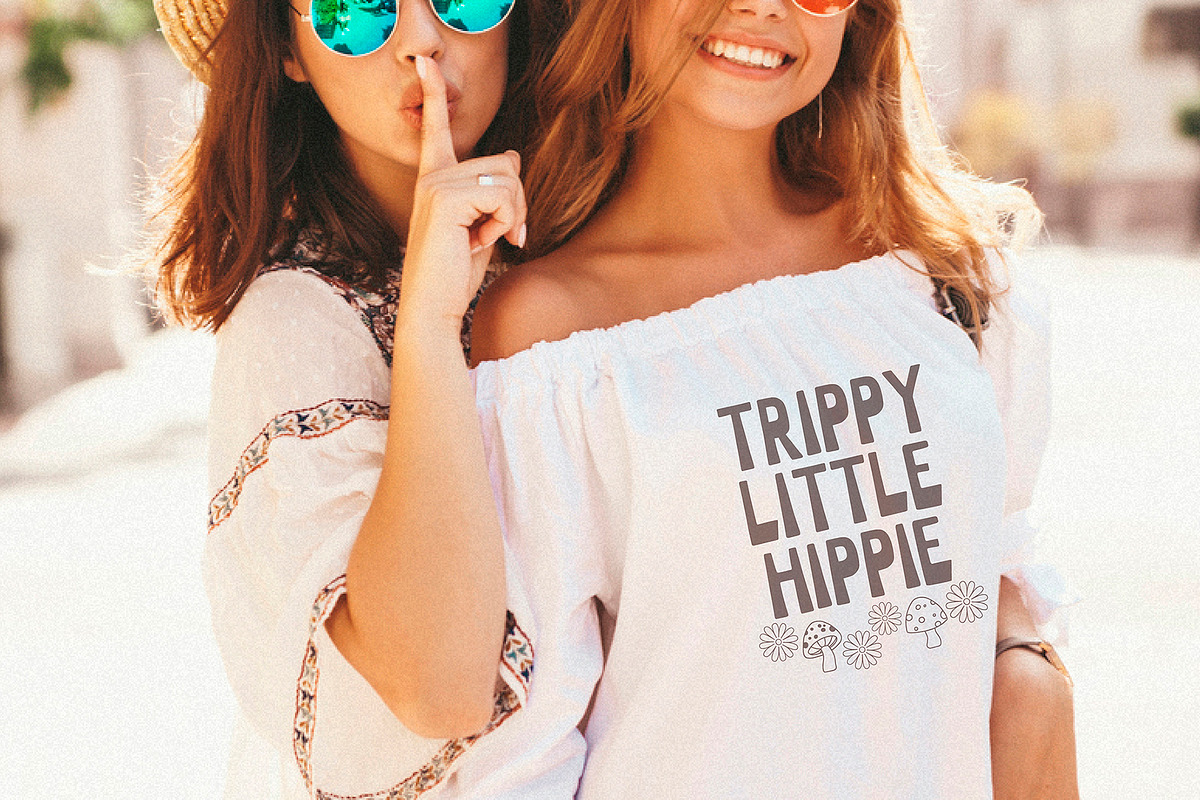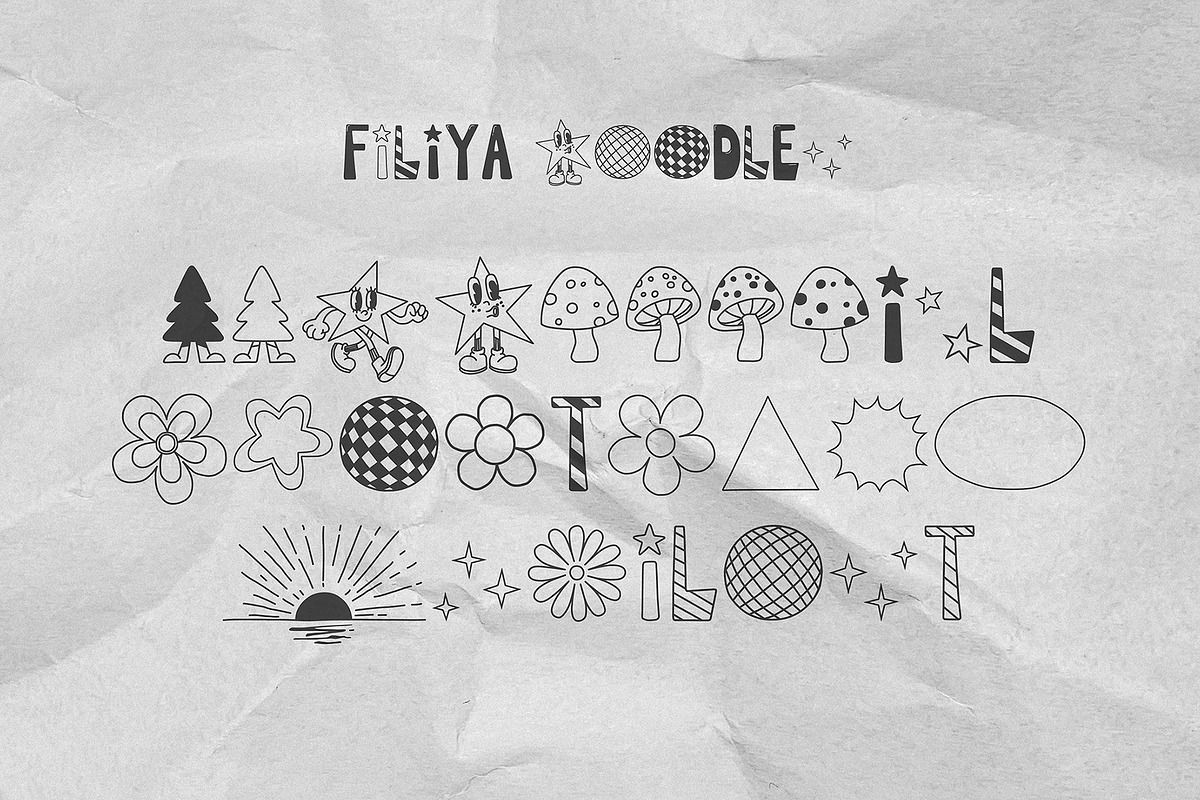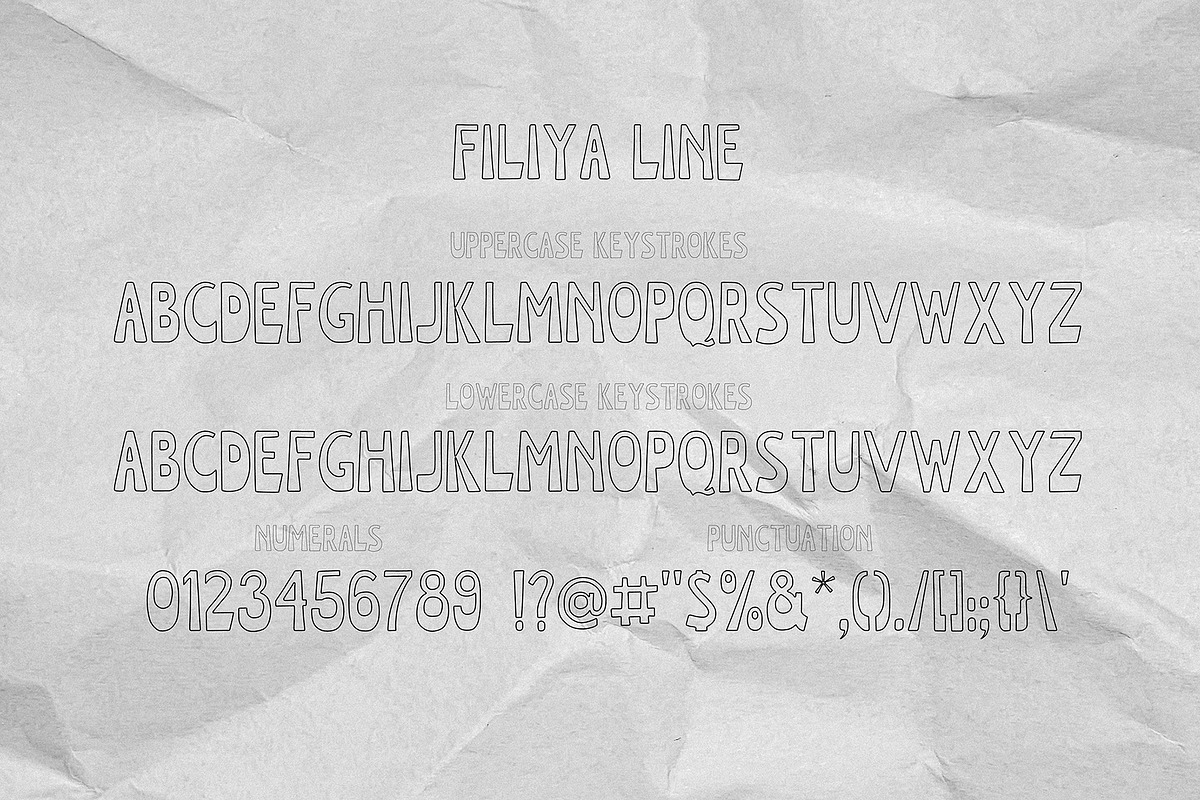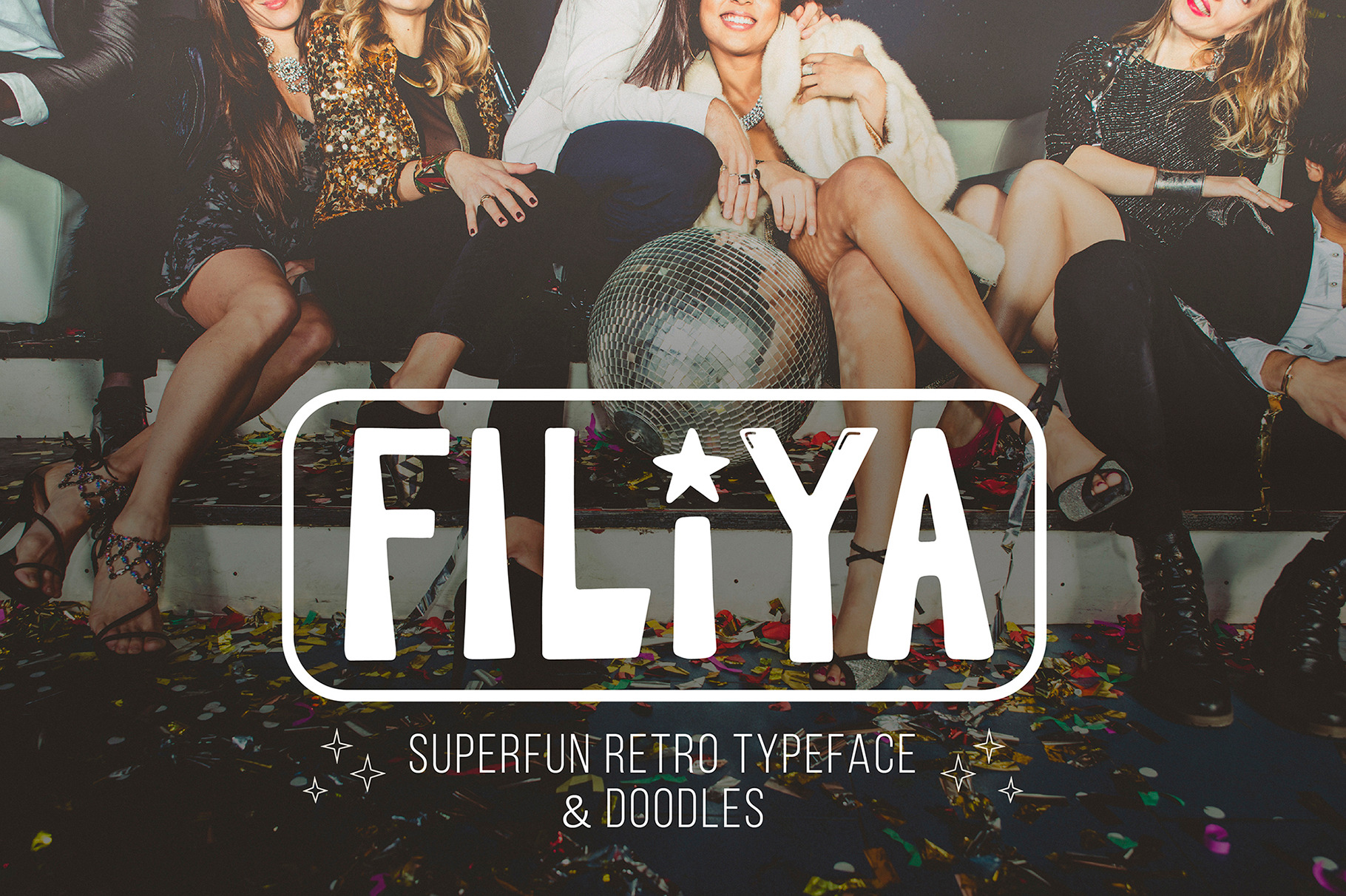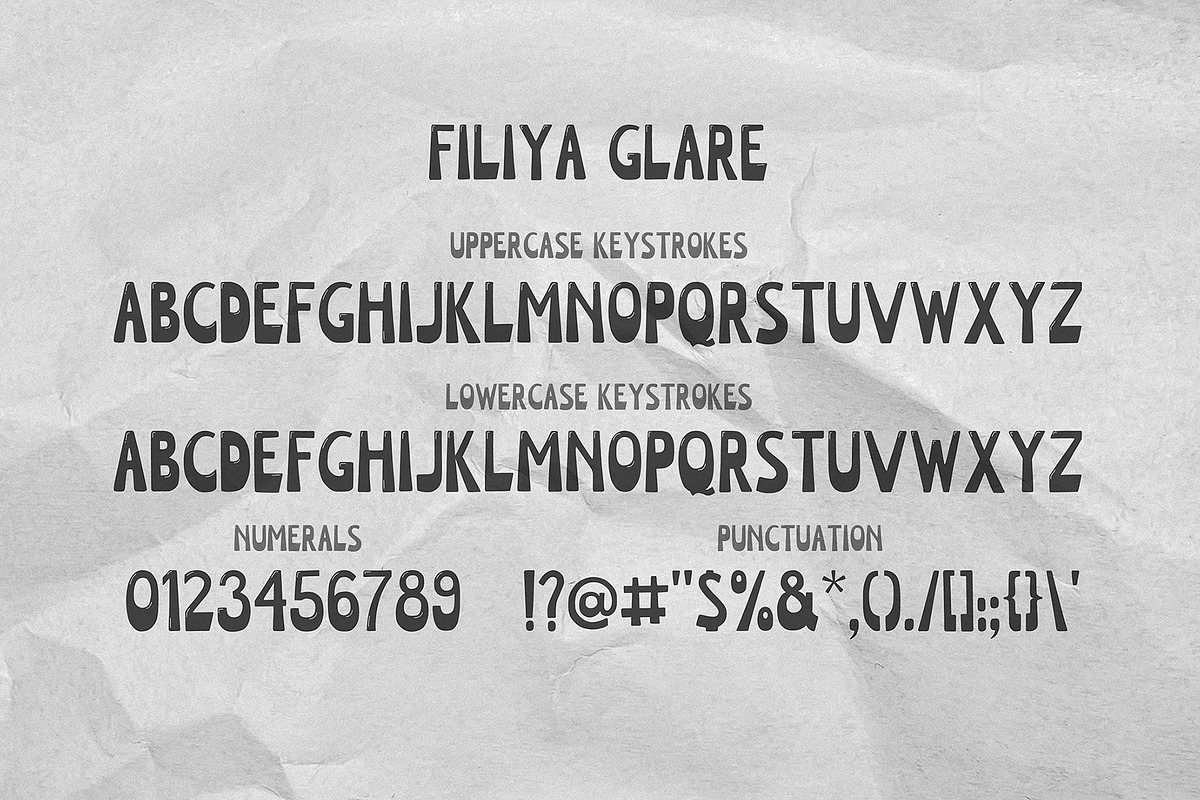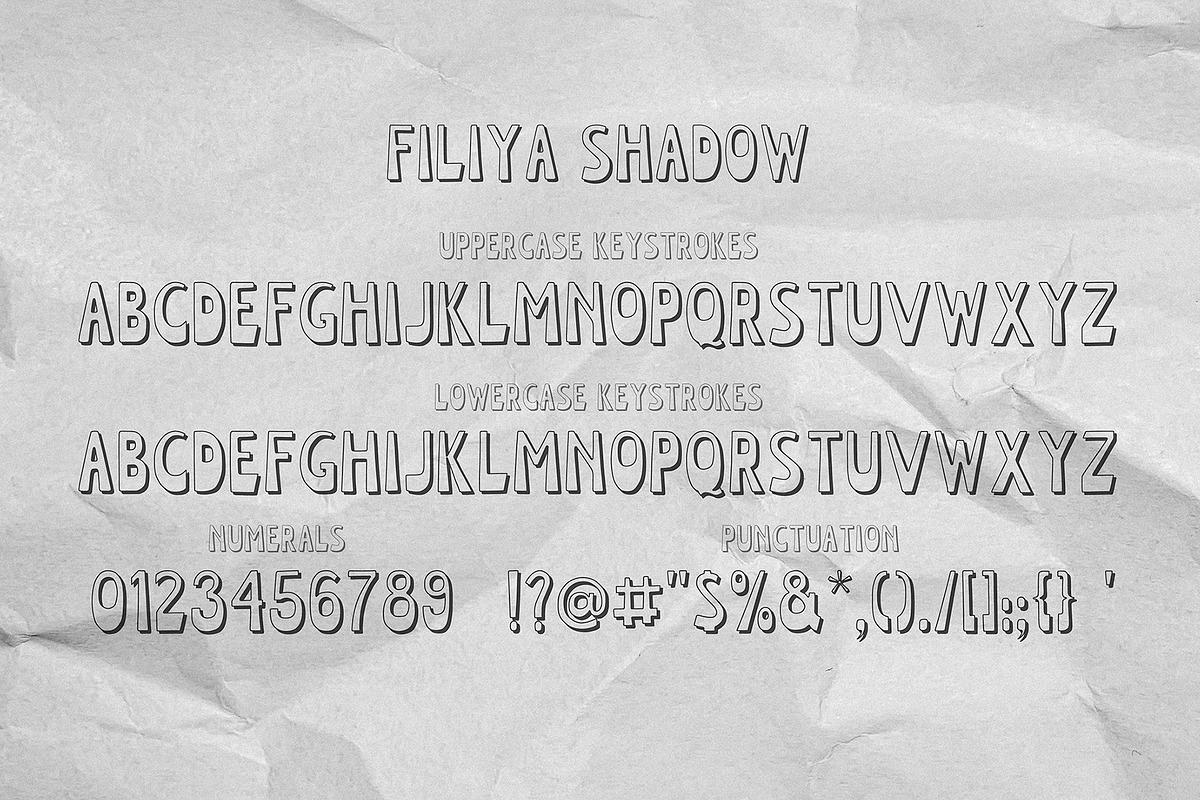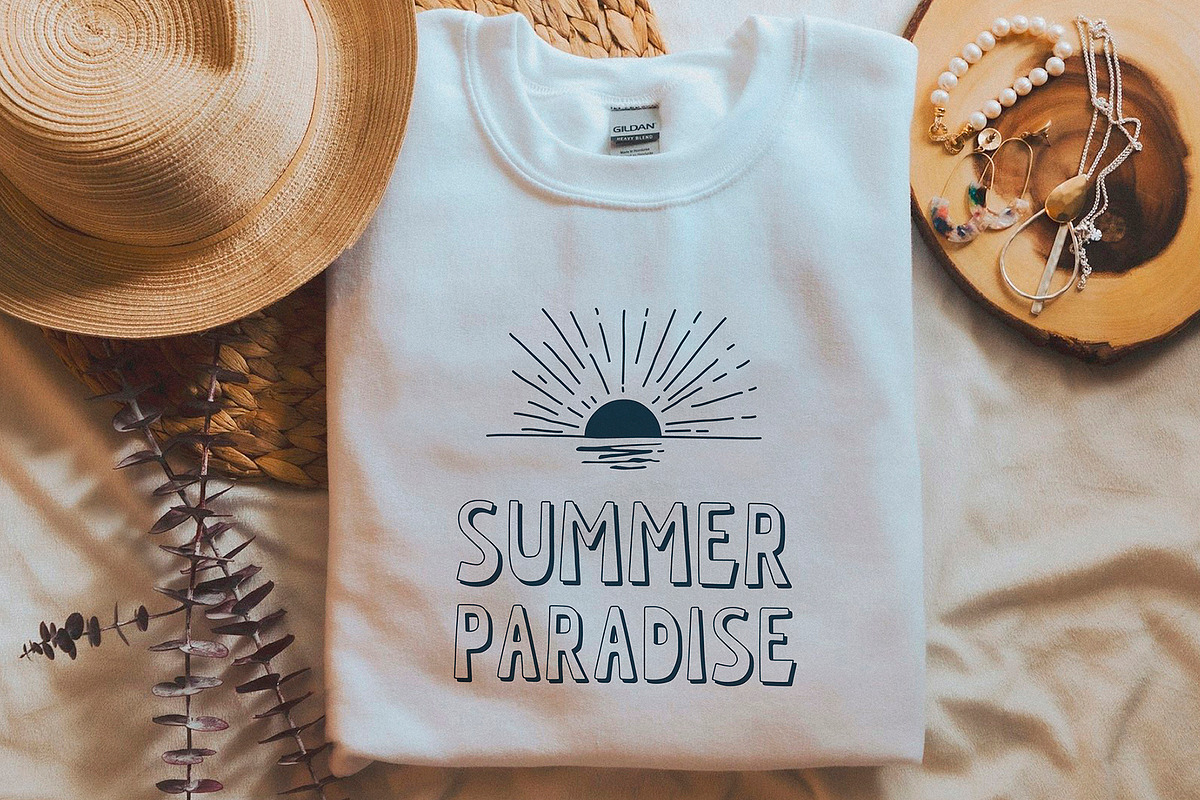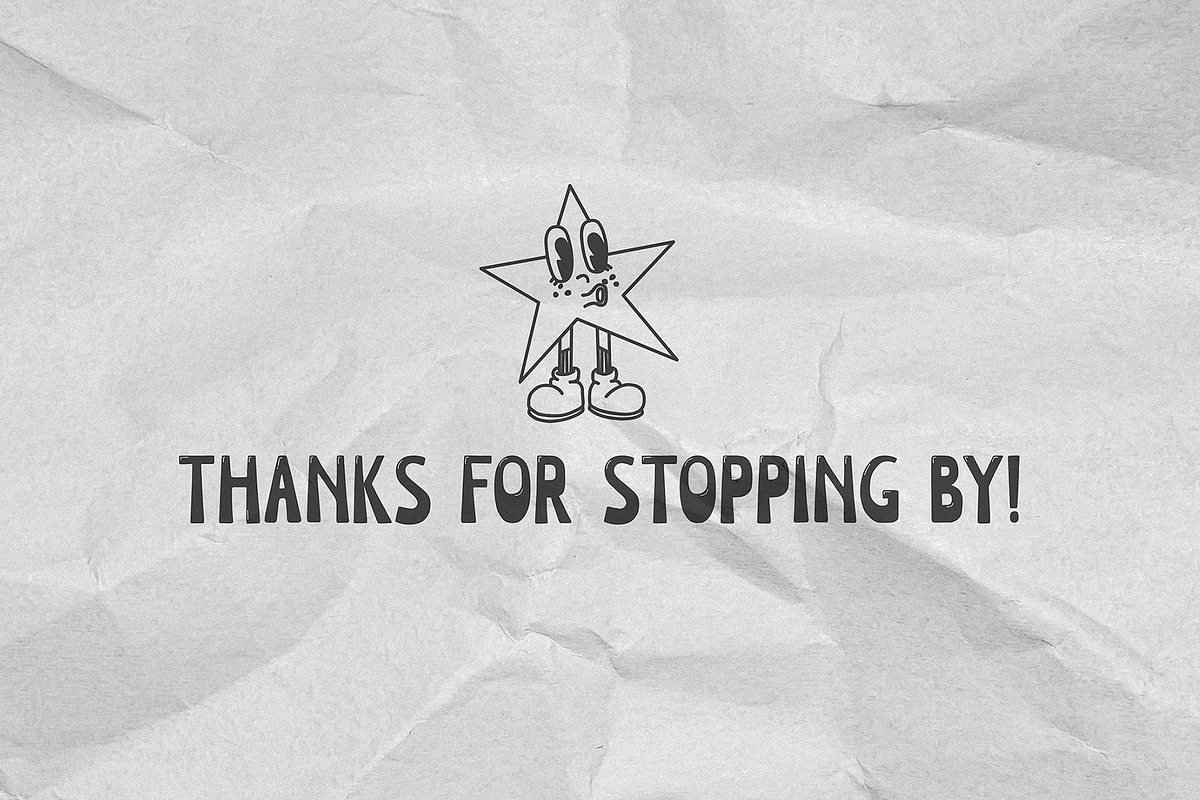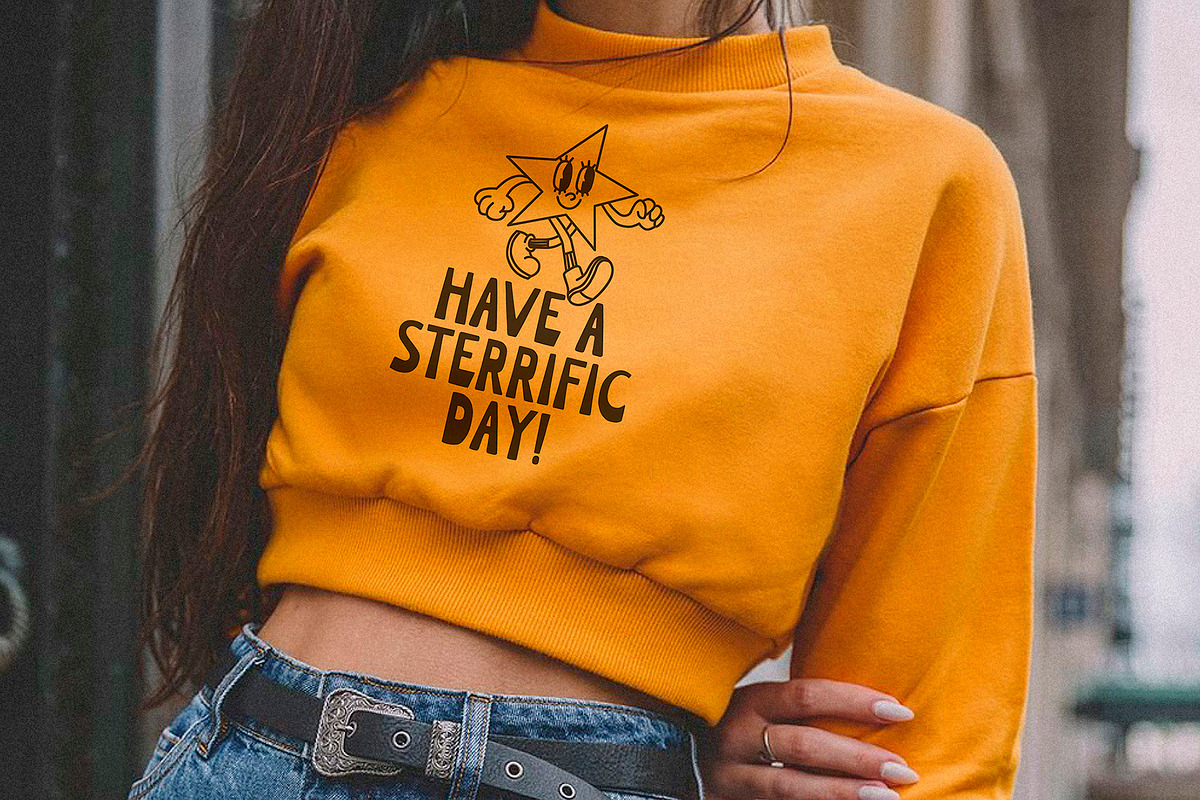
Filiya Font
Say hello to 'Filiya'! This is a funky hand-drawn handwritten font, perfect for all your holiday designs!! Add some retro fun using the 'Filiya' font inspired by the 70s font!
This font is perfect for all your retro designs, procreate designs, social media, shirts, stickers, branding, logos, prints, Cricut designs, svg designs and more!
This font includes a basic set of retro letters from A to Z, as well as some fun festive Christmas themed letters. Create, enjoy and create your own unique image!
'Filiya' is available in five versions! The kit includes - regular, contour, shadow, luminous and doodle!!
- A-Z; a-z character set;
- numbers and punctuation marks, symbols.